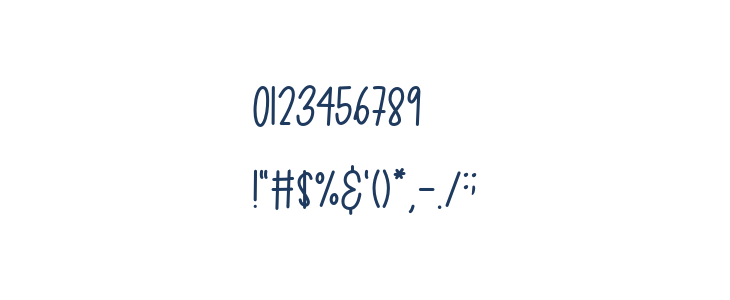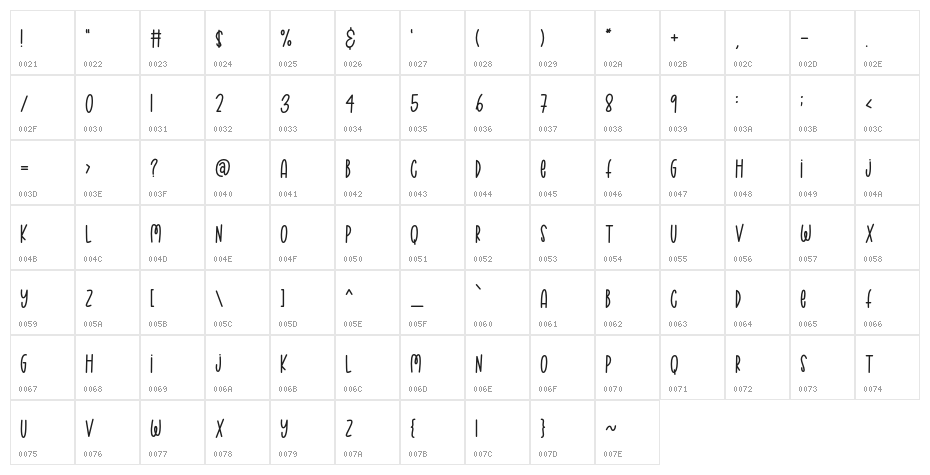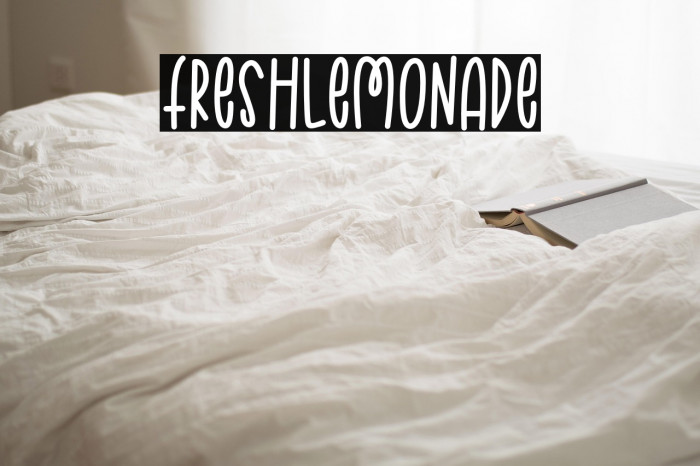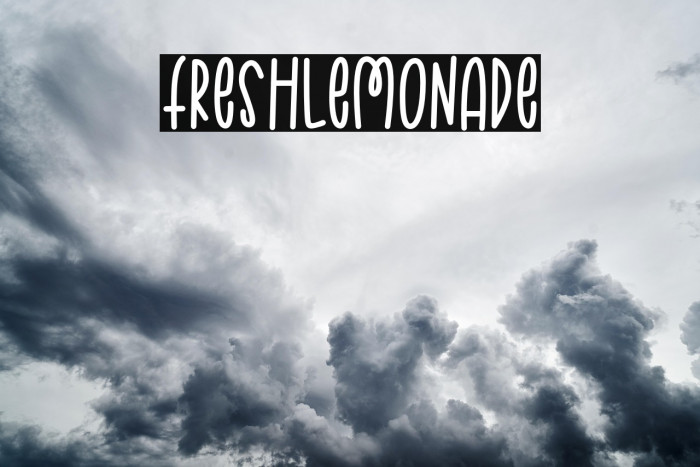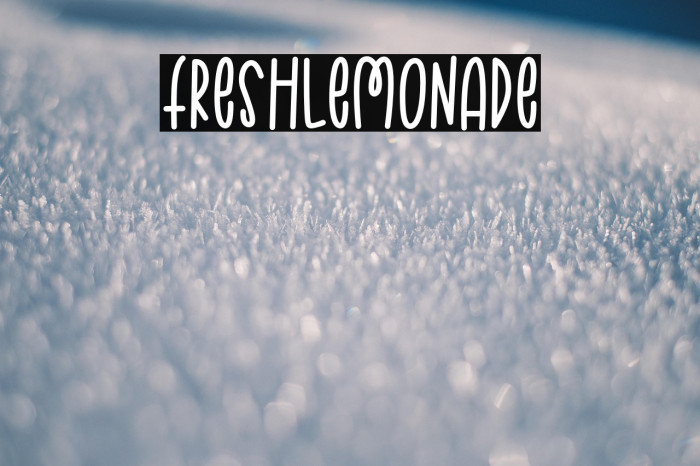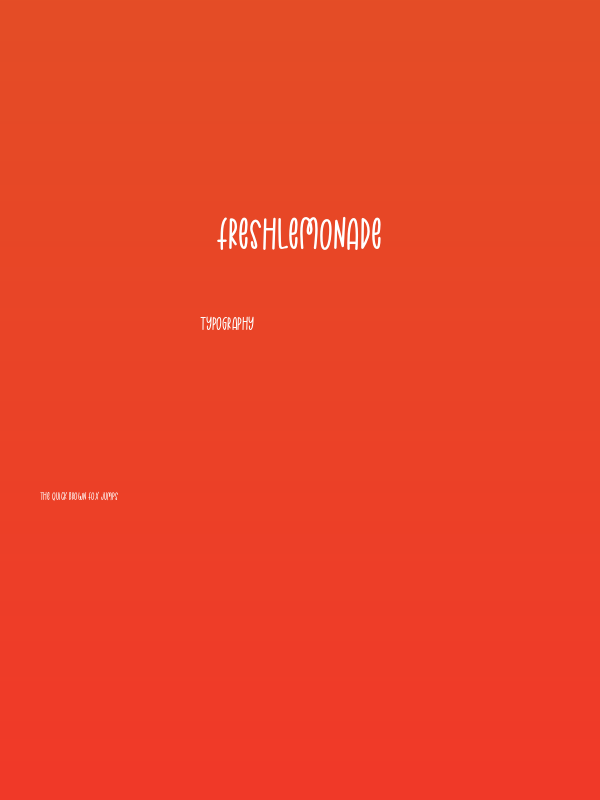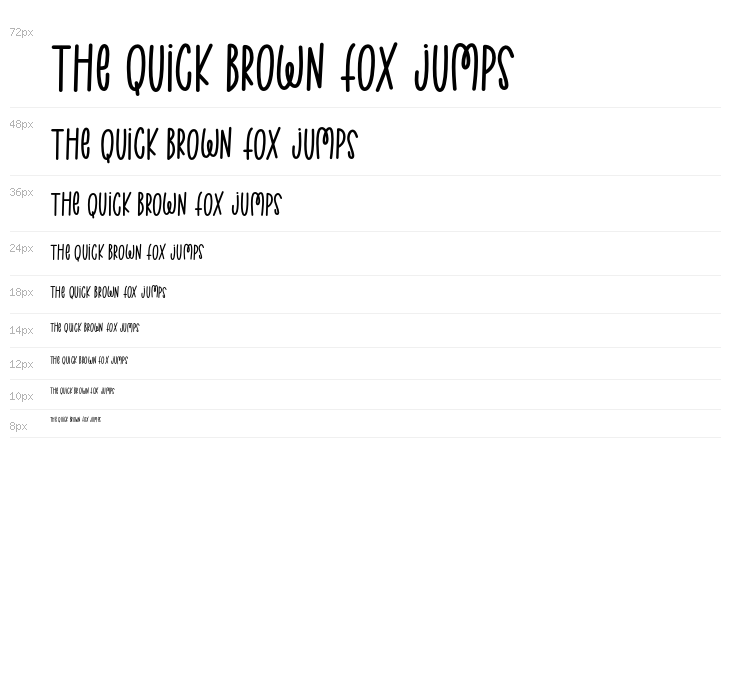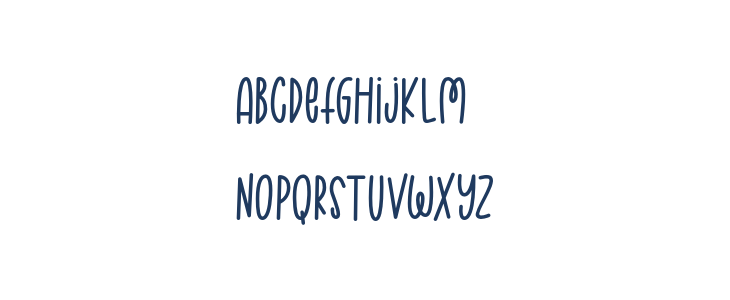
FreshLemonade Font
FreshLemonade Description
This font features a playful and casual handwritten style, characterized by its smooth, rounded edges and consistent stroke width. The letters have a slightly irregular baseline, adding to the informal and friendly appearance. The uppercase and lowercase letters are well-balanced, maintaining readability while offering a unique charm. The numerals and special characters are designed to complement the overall style, ensuring versatility in various design contexts. This font is ideal for projects that require a personal touch, such as invitations, greeting cards, or playful branding.
| Overall Style | Casual, Playful |
| Use Case | Headlines, Logos, Invitations |
| Proposed Projects | Ideal for invitations, greeting cards, playful branding, and casual design projects. |